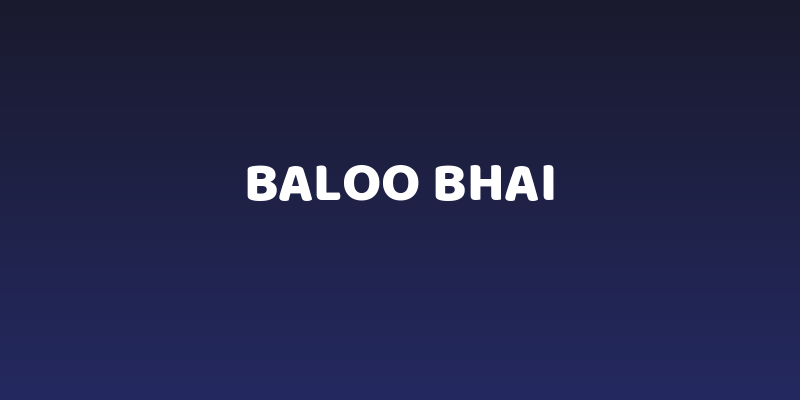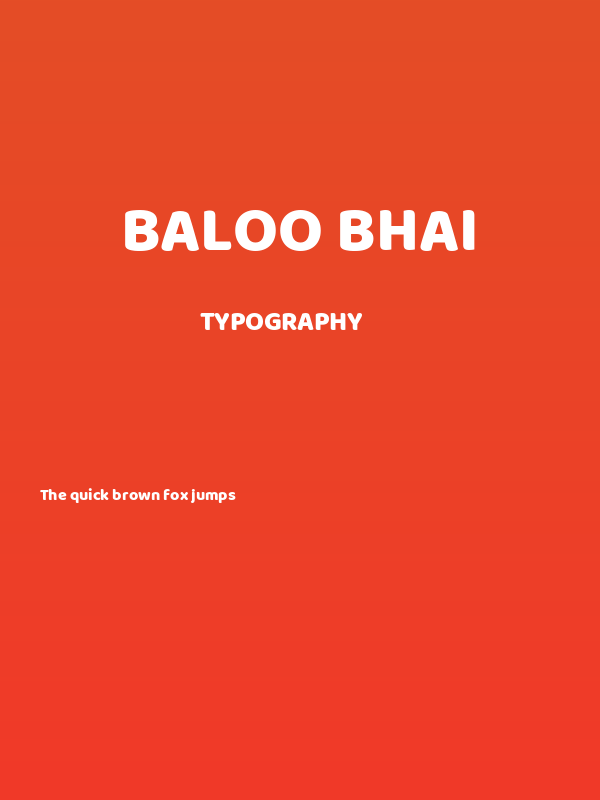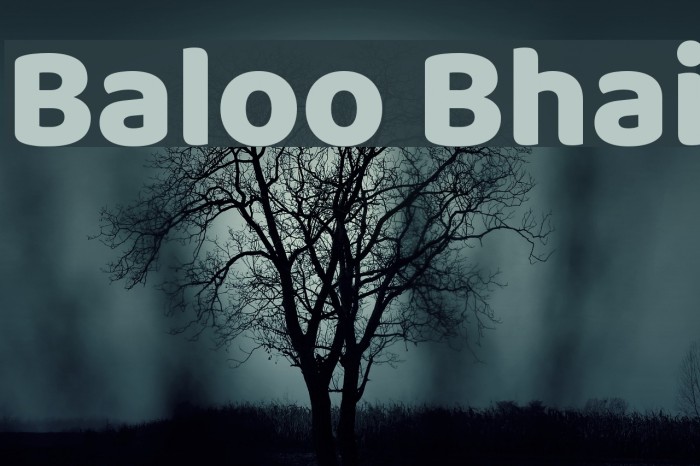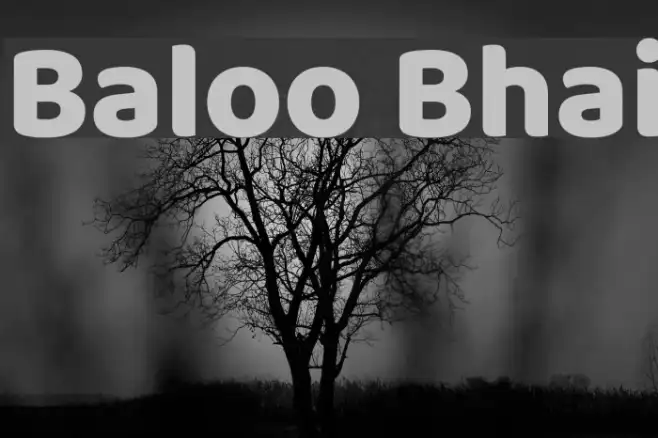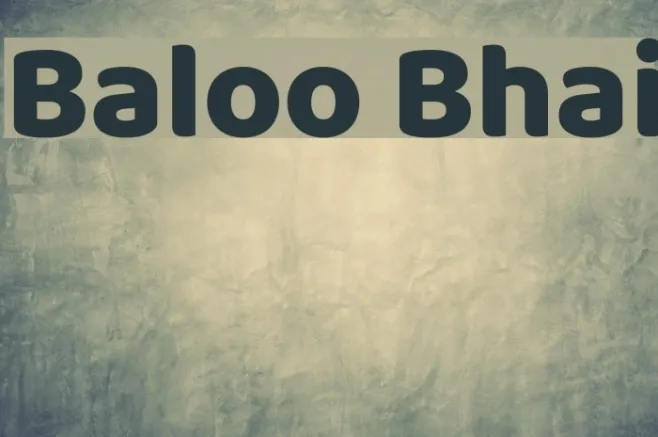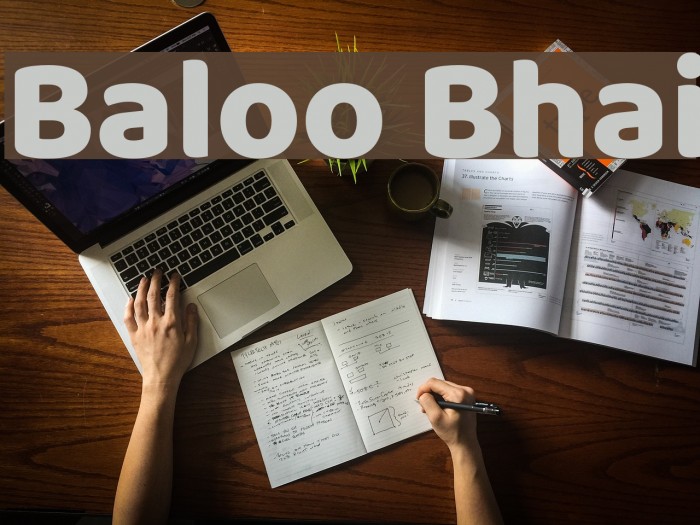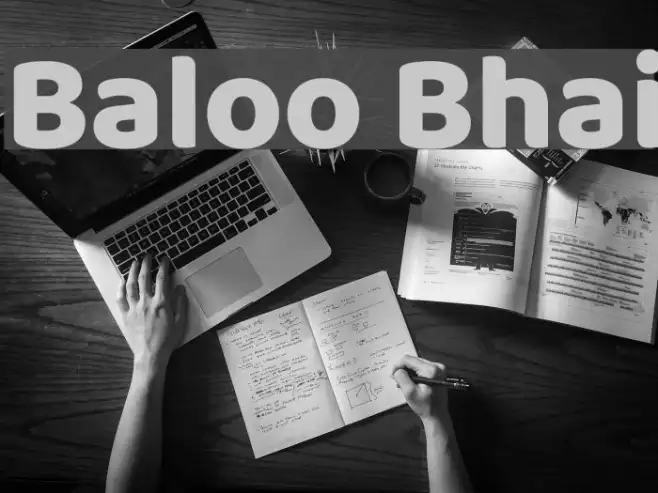
Baloo Bhai Font
Baloo Bhai Description
This font features a playful and rounded design, characterized by its bold and friendly appearance. The letters are thick and have a uniform stroke width, giving it a modern and approachable feel. The rounded edges and smooth curves contribute to its casual and informal style, making it suitable for projects that require a touch of whimsy and warmth. The numerals and special characters maintain the same rounded and bold aesthetic, ensuring consistency across all glyphs.
| Proposed Projects | Ideal for children's books, playful branding, casual invitations, and social media graphics. |